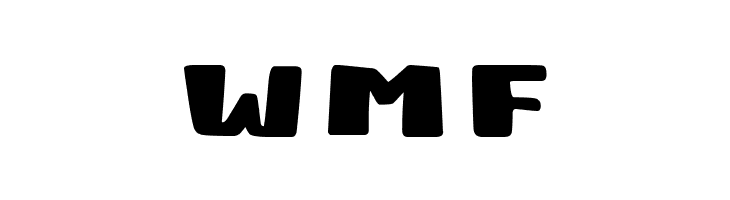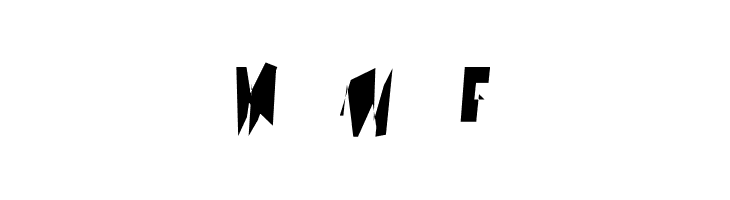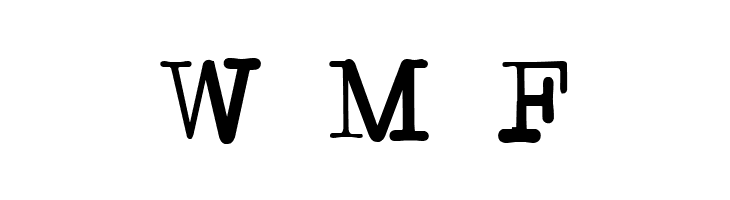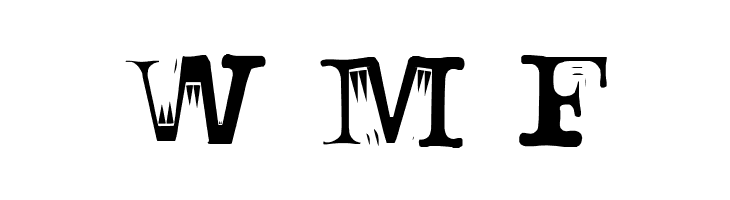
A geometric, structured font with parallel lines and sharp angles, offering a modern and futuristic feel.
A bold, slab serif typewriter-style font with a vintage mechanical aesthetic.
A bold, distressed serif font with a vintage typewriter style.
A bold, graffiti-inspired font with dynamic curves and expressive characters.
A bold, geometric font with unique cutouts and a modern aesthetic.
A bold, geometric font with unique cutouts and rounded edges.
A modern, clean sans-serif font with balanced proportions and excellent readability.
A bold, modern sans-serif font with clean, rounded edges and excellent readability.
A modern, condensed sans-serif font with a clean and balanced design.
A modern, italic sans-serif font with smooth curves and excellent legibility.
A modern, light sans-serif font with a clean and approachable design.
A sleek, modern, light italic font with smooth strokes and tight spacing.
A modern, clean sans-serif font with balanced proportions and medium weight.
A modern, clean, and slightly italic font with medium weight and excellent readability.
A clean, modern monospaced font with rounded edges and consistent spacing.
A bold, monospaced typeface with a modern and clean design.
A bold, italic, monospaced font with clean lines and equal character width.
A modern, monospaced italic font with low contrast and uniform spacing.
A modern, monospaced typeface with uniform spacing and a clean, geometric design.
A bold, monospaced font ideal for coding and technical documents.
A bold, italic, monospaced font with a modern and clean design.
A modern, italic monospaced font with equal character width.
A chaotic and abstract font with fragmented, distorted letterforms.
A bold, italicized font with a chaotic, torn-paper appearance.
A bold, distressed font with a grunge aesthetic and vintage appeal.
A bold, playful font with chunky, rounded characters and a hand-drawn feel.
A bold, distressed font with a graffiti-like, hand-drawn style.
A bold, geometric font with a modern, digital aesthetic.
A bold, distressed font with a vintage, textured appearance.